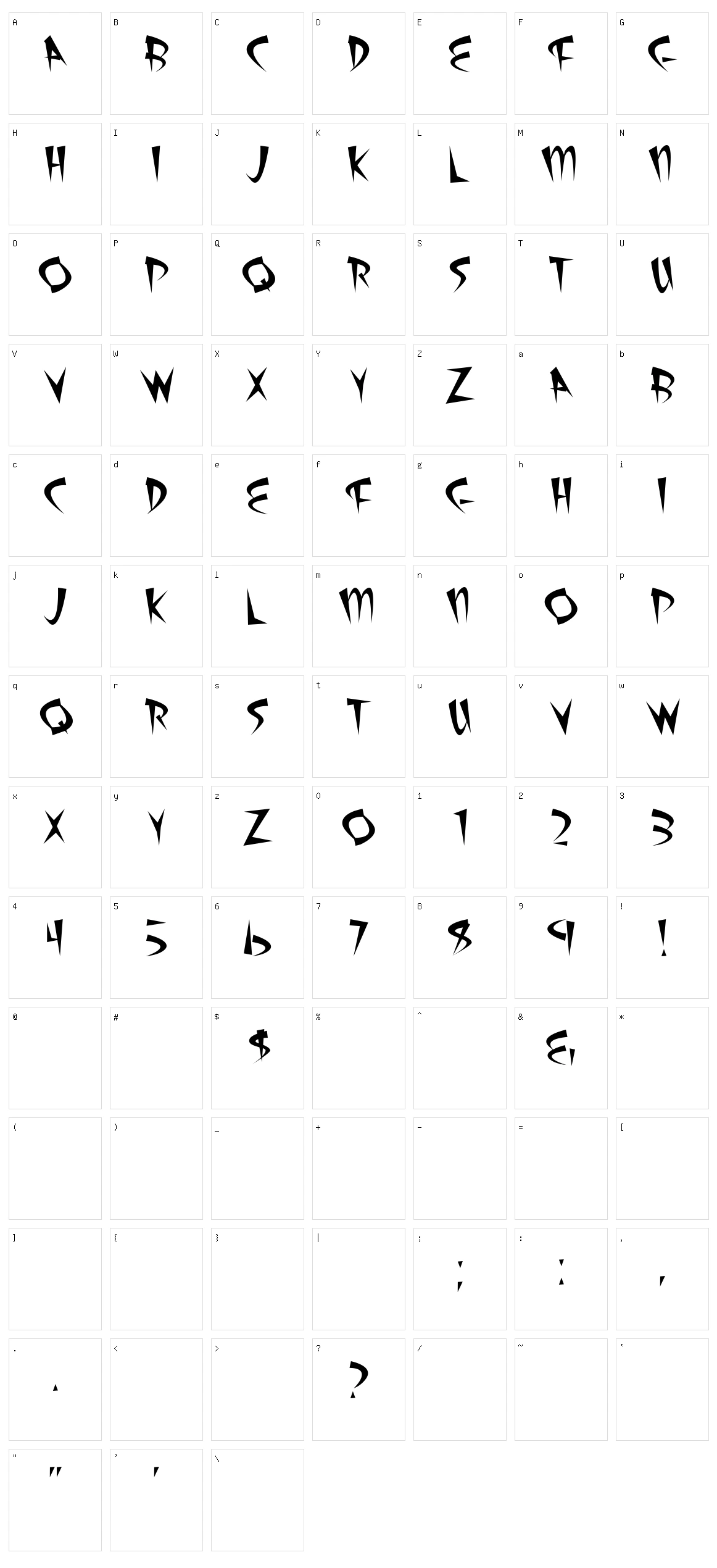
Atomic Sushi is based on some typography seen on vintage 50's
Laundromat signage. (It also has a distinct "asian" feel thus
in Headline and initial caps.